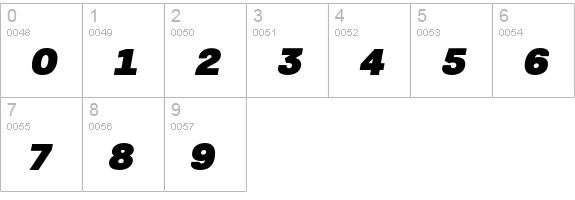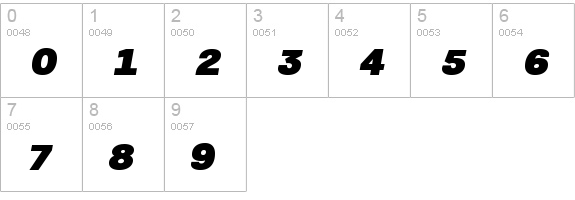
PFEncoreSansPro-UltraBlackItalic is a striking and bold typeface that commands attention with its powerful presence. The ultra black weight and italic styling combine to create a dynamic and modern look that is perfect for making a statement in any design project. This font exudes confidence and sophistication, making it ideal for headlines, logos, posters, and other display purposes. What sets PFEncoreSansPro-UltraBlackItalic apart is its versatility and readability despite its heavy weight. The italic slant adds a touch of elegance and flair, making it a versatile choice for both formal and creative applications. Whether you're designing a sleek magazine layout or a high-impact advertising campaign, this font is sure to make a bold impression. Best of all, PFEncoreSansPro-UltraBlackItalic is available for free download at FontsMarket.com, making it easily accessible to designers and creatives looking to add a touch of drama to their projects without breaking the bank. Don't miss out on this opportunity to elevate your designs with this stunning and impactful typeface. Download PFEncoreSansPro-UltraBlackItalic today and unleash your creativity!